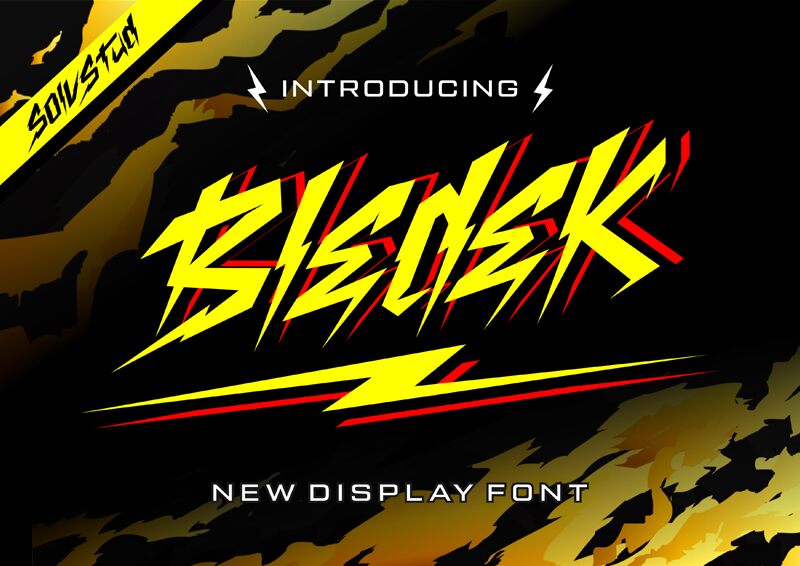
Bledek, a modern gothic font crafted by Solv Vast, captivates with its bold, thunderous strokes. This unique display typeface exudes an edgy, dynamic energy, commanding attention with its angular forms and distinct character. The condensed width adds a sense of intensity, making Bledek an impactful choice for designers seeking a versatile font to elevate their projects.
Bledek's versatility shines across various design applications, from eye-catching posters and apparel to dynamic magazine layouts and compelling brand identities. Its striking presence lends itself well to logo design, while the font's bold personality can elevate t-shirt graphics and other merchandise. Bledek's distinct aesthetic makes it a compelling choice for designers seeking to create a memorable, attention-grabbing visual impact.